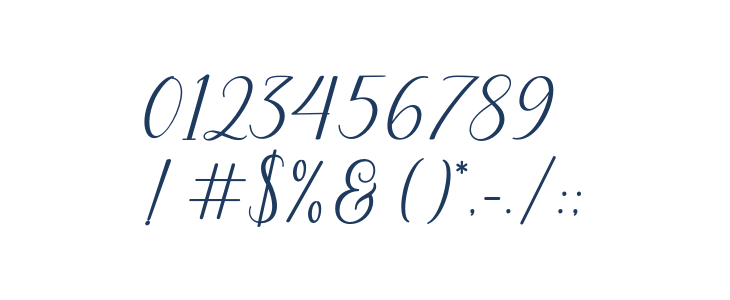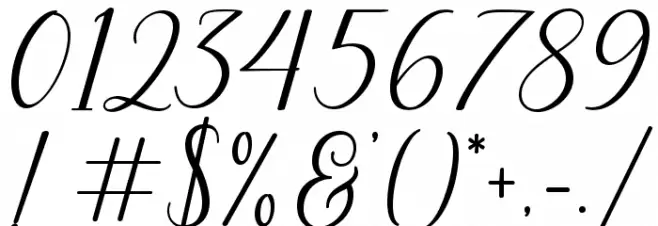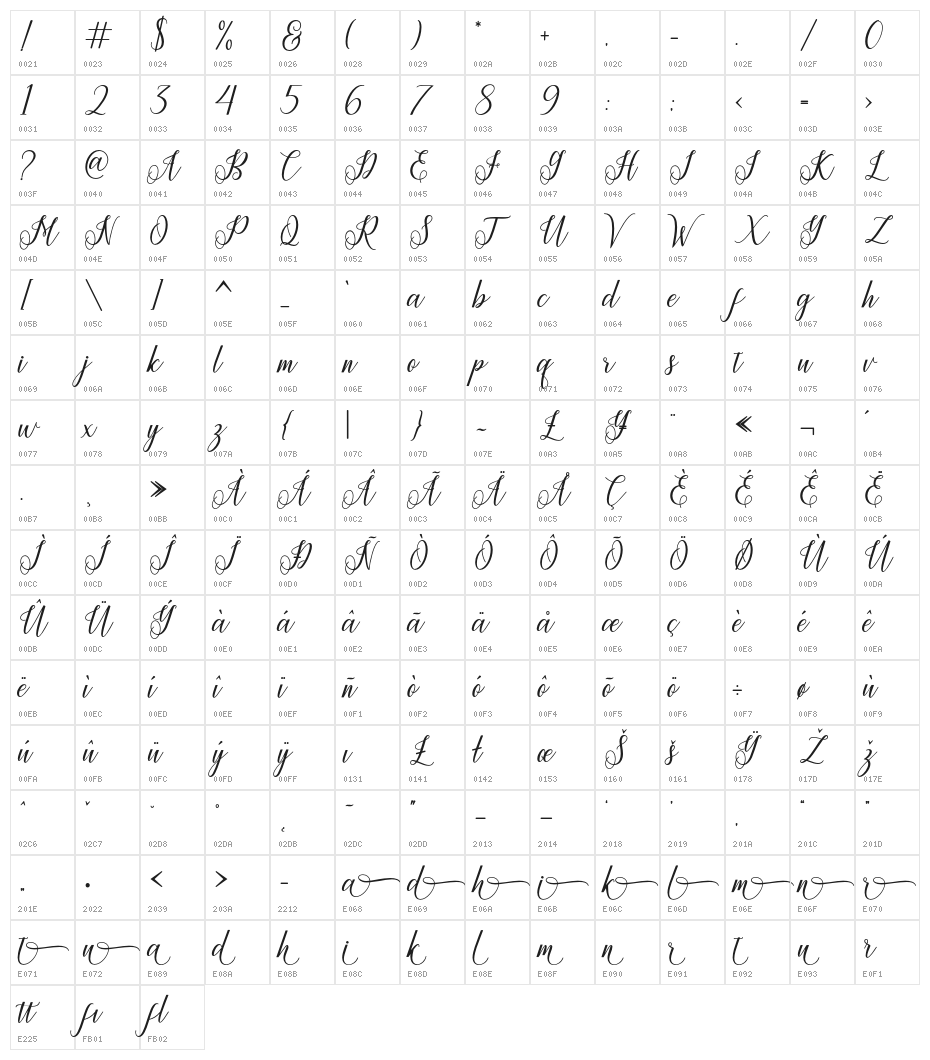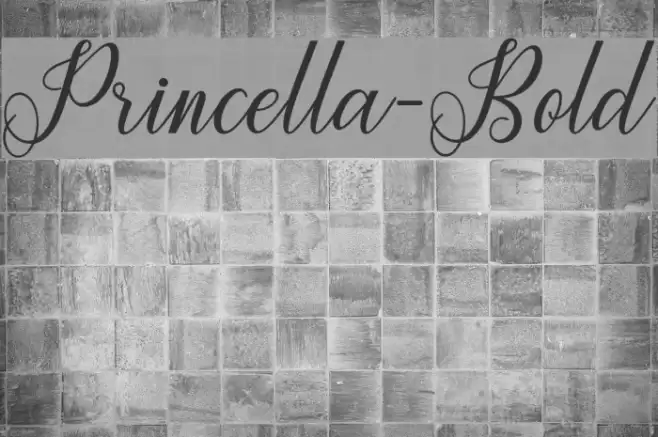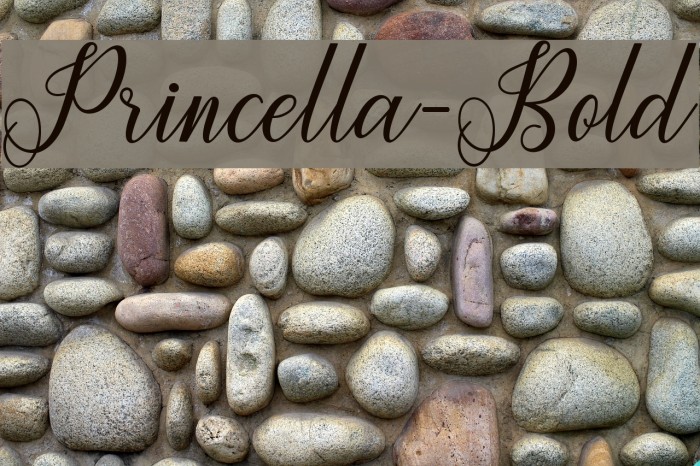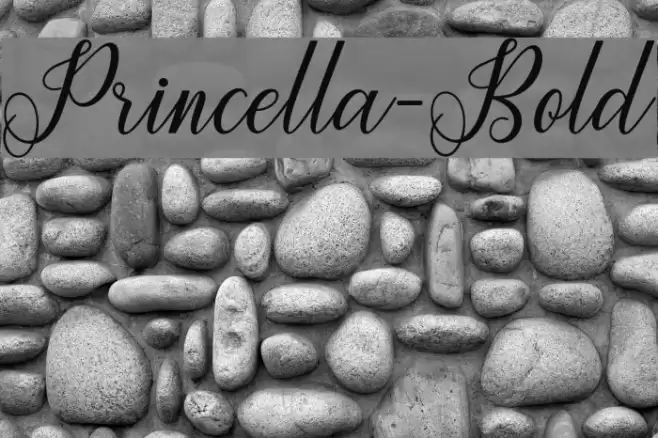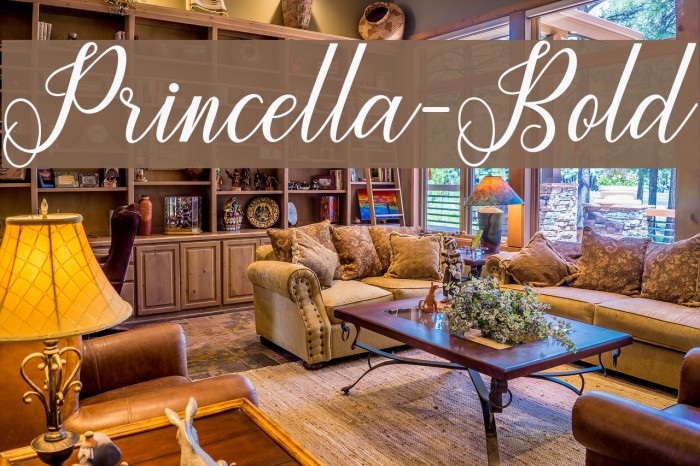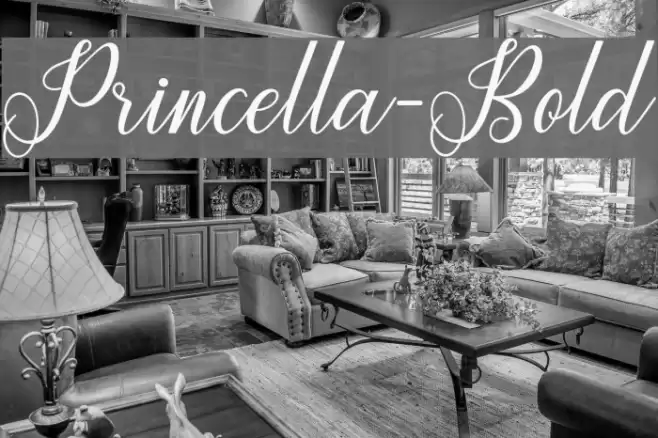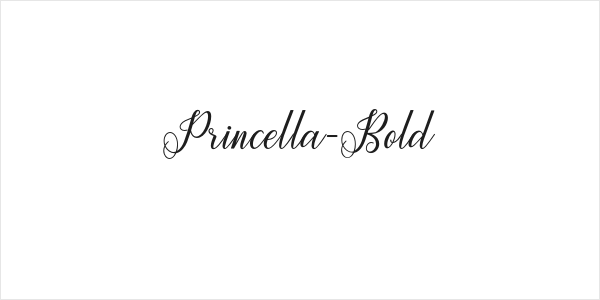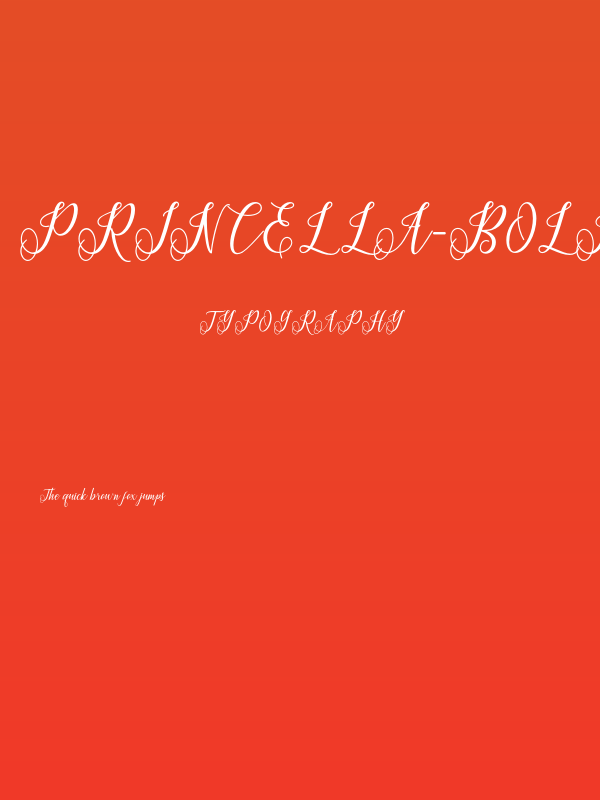
Princella-Bold Font
Princella-Bold Description
This elegant script font features ornate, flowing characters with intricate loops and flourishes. The uppercase letters are particularly decorative, with each character exhibiting unique embellishments that enhance its sophisticated appearance. The lowercase letters maintain a graceful, cursive style, offering a harmonious blend of readability and artistic flair. The numerals are sleek and slightly italicized, complementing the overall aesthetic. Special characters are designed with the same attention to detail, ensuring consistency throughout the font. This typeface exudes a sense of luxury and refinement, making it ideal for projects that require a touch of elegance.
| Proposed Projects | Ideal for wedding invitations, luxury branding, elegant signage, and high-end product packaging. |